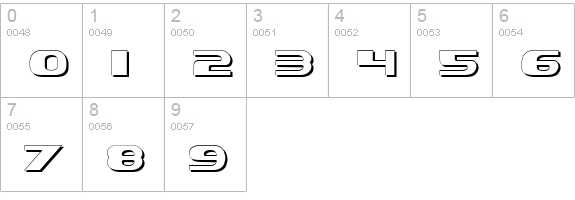
Xcelsion Shadow is a stunning and unique display font that exudes elegance and sophistication. Its intricate design and shadow effect make it perfect for adding a touch of drama to your projects. This font is versatile and can be used for a variety of design purposes, from logos to posters to invitations. Best of all, Xcelsion Shadow is available for free download at FontsMarket.com. This means you can easily access this beautiful font and elevate your designs without breaking the bank. Don't miss out on the opportunity to enhance your projects with the striking Xcelsion Shadow font – download it for free today!